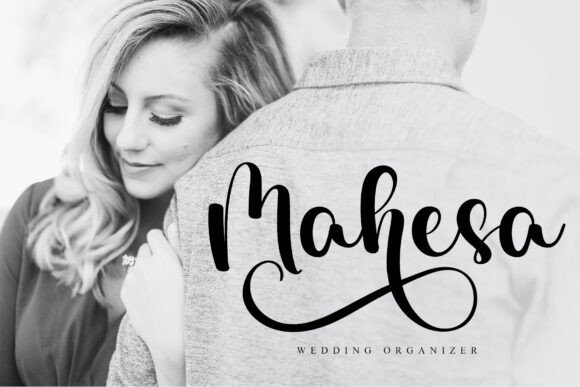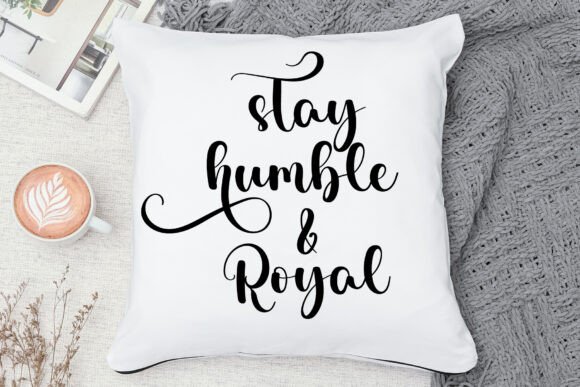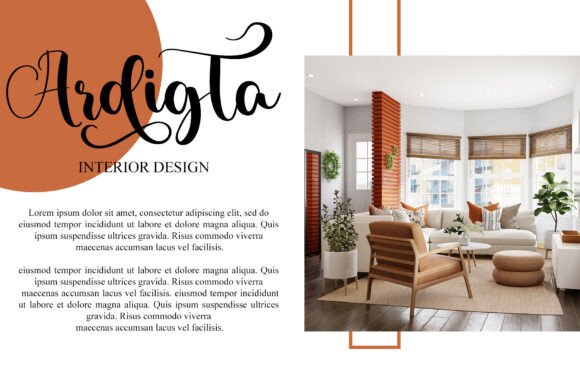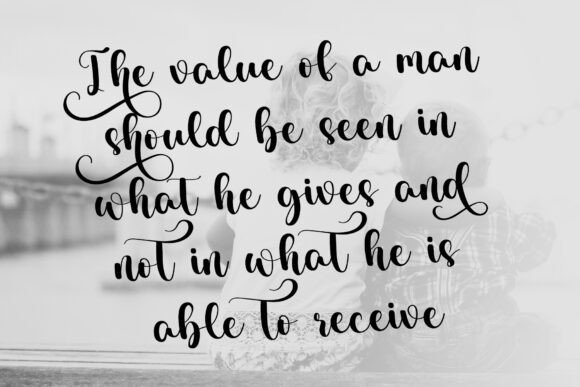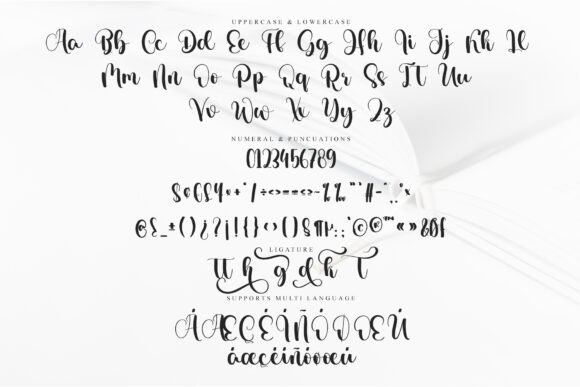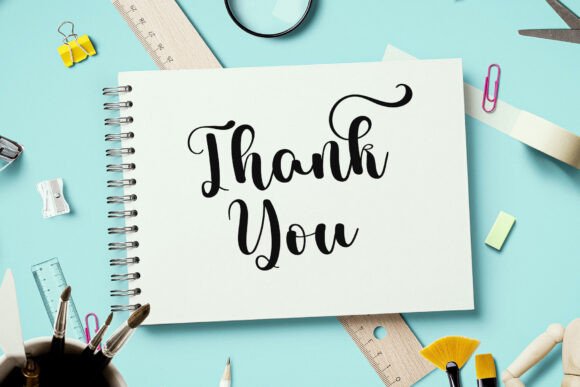
The Joy of Typography: Unleashing Creativity with Chilling Font
There’s nothing quite like the rush of excitement when a new design project begins. The blank canvas, the endless possibilities, the thrill of bringing an idea to life – it’s a feeling that never gets old. And for designers, it’s often the small details that can make all the difference. A well-chosen font can elevate a design from good to great, and that’s exactly where the Chilling Font comes in.
This stylish and modern handwritten font is perfect for adding a touch of personality to your creations. Whether you’re working on a greeting card, a headline, a brand identity, or packaging design, the Chilling Font is sure to bring a smile to your face and a spark to your design. With its PUA encoding, you’ll have access to all the amazing glyphs and ligatures, giving you the freedom to express yourself in a whole new way.
- Unique Characteristics: Includes a range of chilling expressions and emotions, perfect for horror, thriller, or suspenseful designs
Designer Review: Chilling Font
Overall, I think Chilling Font has a lot of potential, but it also has some areas where it falls short. Let’s dive in and take a closer look.
- Unique aesthetic: Chilling Font has a distinct, icy feel that sets it apart from more common fonts. It’s perfect for winter-themed projects or anything that needs a touch of frosty elegance.
- Good legibility: Despite its stylized look, Chilling Font is surprisingly easy to read, even at smaller sizes.
- Fun for creative projects: This font is great for designers who want to add a little extra flair to their work, such as in graphic design, web design, or even branding.
- Not suitable for body text: Due to its stylized nature, Chilling Font is best used for headlines, titles, or other display text. Using it for large blocks of body text may make it difficult to read.
- Limited language support: Chilling Font may not include the full range of languages, which could be a problem for designers working on multilingual projects.
Chilling Font is a solid choice for designers who want to add some personality to their work. While it may have some limitations, its unique aesthetic and good legibility make it a great addition to any design toolkit.
Use Chilling Font in bold and italic styles to add emphasis and visual interest to your designs.
Pair Chilling Font with other modern fonts to create a unique and eye-catching typography.
Chilling Font is ideal for use in digital designs, such as website headers, social media graphics, and advertisements.
It is also suitable for use in print designs, such as business cards, brochures, and posters.